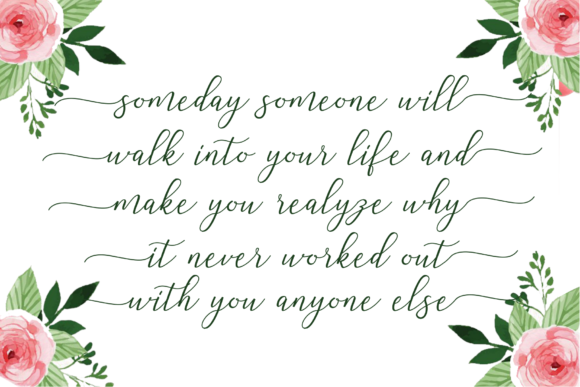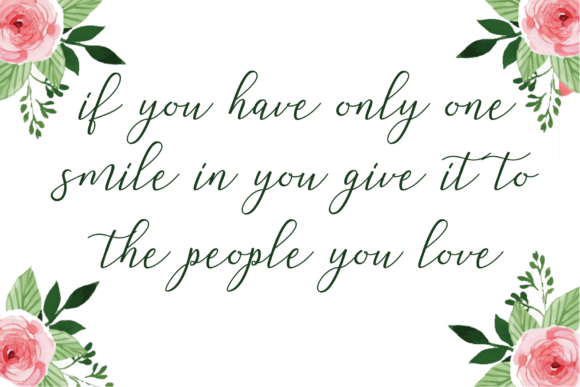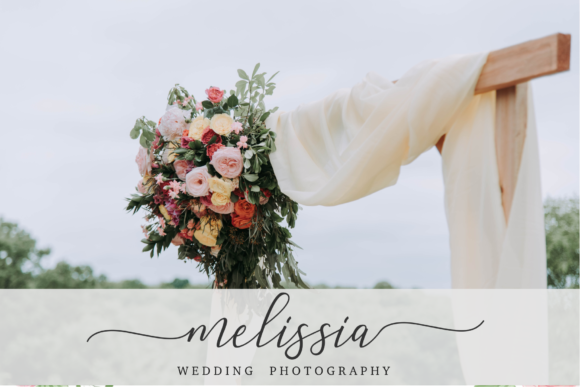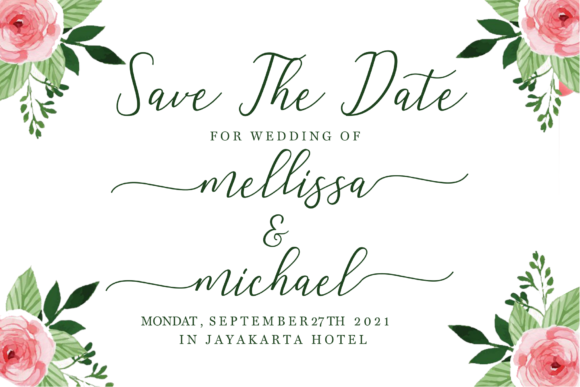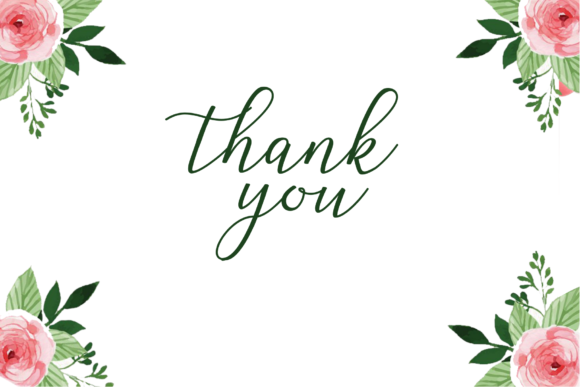
Introduction to Mellinda Script Font
Have you ever found yourself staring at a blank page, desperate for the perfect font to bring your creative project to life? I know I have. It’s that moment when the entire design hangs in the balance, and the right choice can make all the difference. For designers, the hunt for the perfect font can be a tedious but crucial task. That’s why I’m excited to introduce you to the beautiful Mellinda Script Font – a game-changing addition to any design resource.
This stunning calligraphy typeface is a breath of fresh air, with characters that seem to dance along the baseline, adding a touch of luxury to any design project. With its PUA encoding, you can access all the amazing glyphs and ligatures with ease, making it the perfect choice for designers looking to add a high-quality, unique touch to their work.
- Features a unique, elegant script style that adds a touch of sophistication to any design.
Honest Review: Mellinda Script Font
I recently had the chance to work with the Mellinda Script Font, and I must say, it’s a fantastic addition to any design project. As a designer, I’m always on the lookout for high-quality fonts that can elevate my work, and Mellinda Script Font definitely delivers.
What works well: ✨ The font is incredibly versatile and can be used for a wide range of creative projects, from wedding invitations to branding materials. The subtle flourishes and elegant lines make it perfect for adding a touch of sophistication to any design. Additionally, the transparent background option allows for seamless integration with any background image or color.
Limitations: ⚠️ While the font is generally of high quality, I did experience some issues with italics and bold weights. In some cases, the characters didn’t align perfectly, which can be distracting in a design. However, this may be a minor issue that can be resolved with future updates.
Mellinda Script Font is a high-quality, elegant script font that can elevate your creative project to the next level. With its beautiful, flowing letters, it’s perfect for designing invitations, quotes, and other design elements.
Getting the Most Out of Mellinda Script Font
To get the most out of Mellinda Script Font, try using it in combination with other high-quality design resources, such as graphics and textures. This will help create a cohesive and visually appealing design.
Mellinda Script Font is perfect for:
- Designing invitations and event graphics
- Creating quotes and inspirational graphics
- Adding a touch of elegance to your website or blog